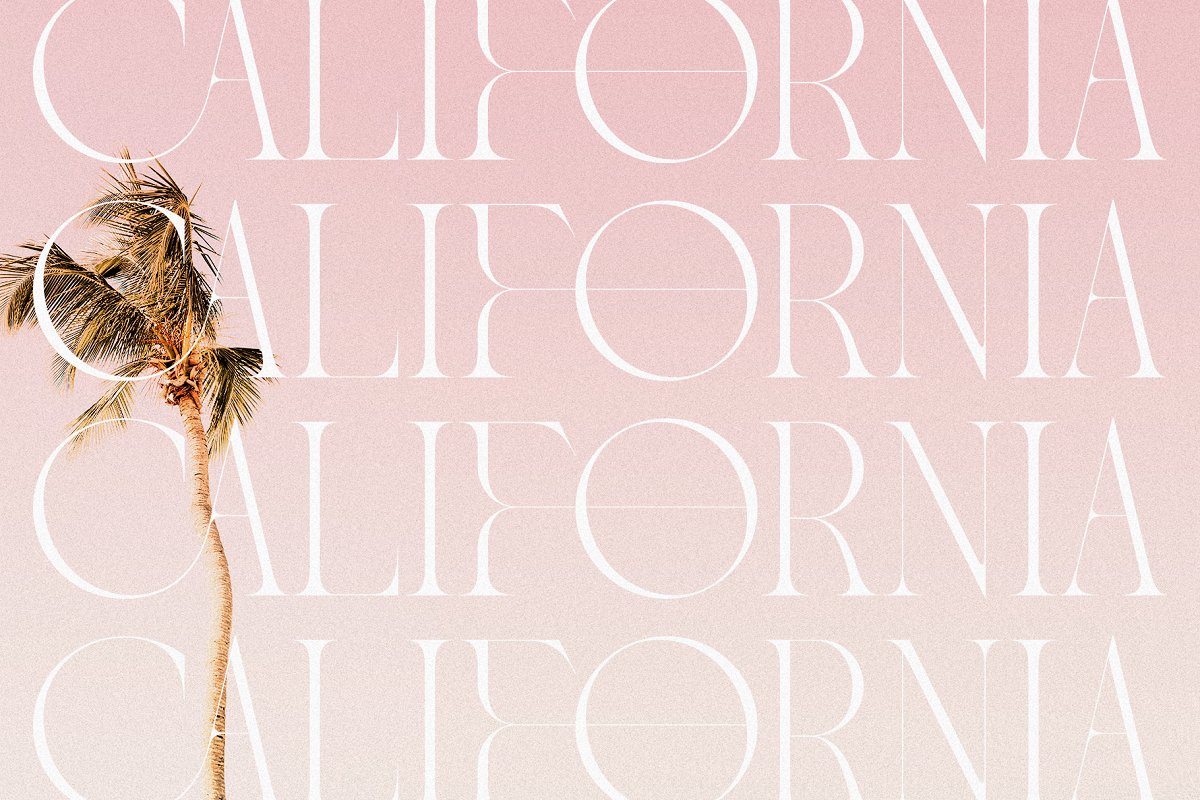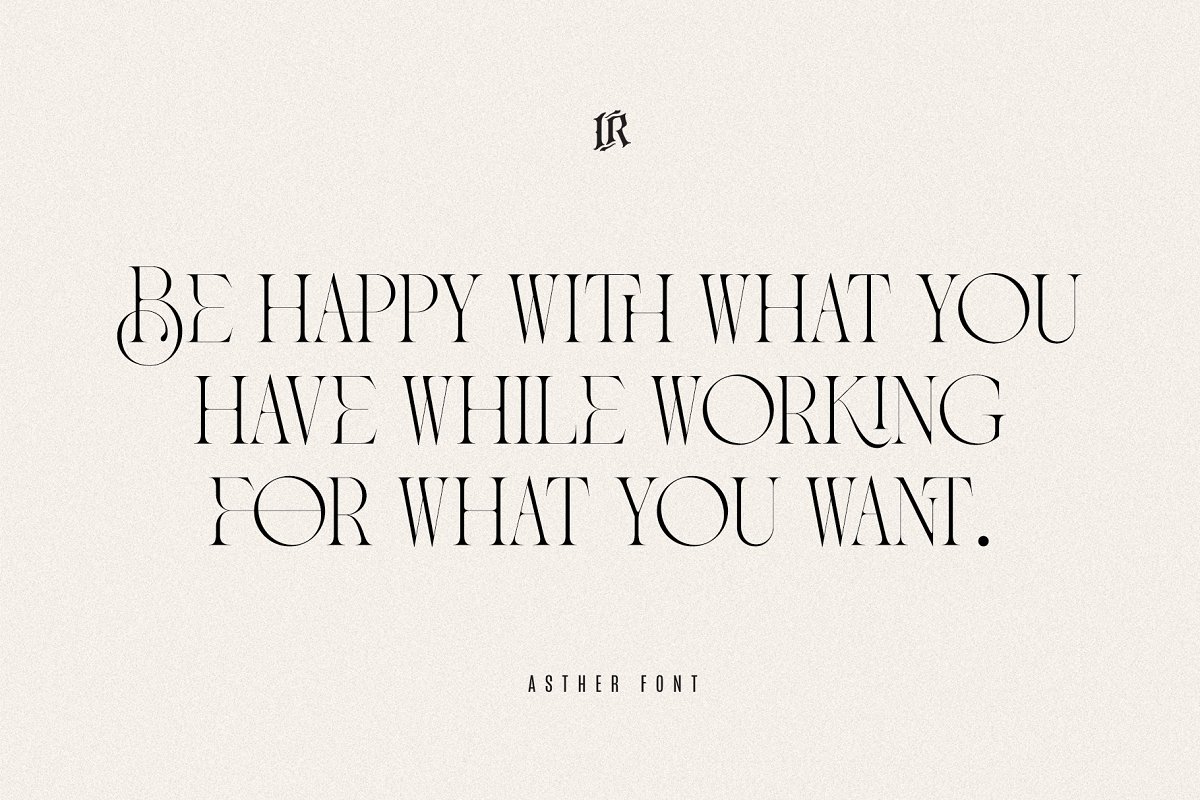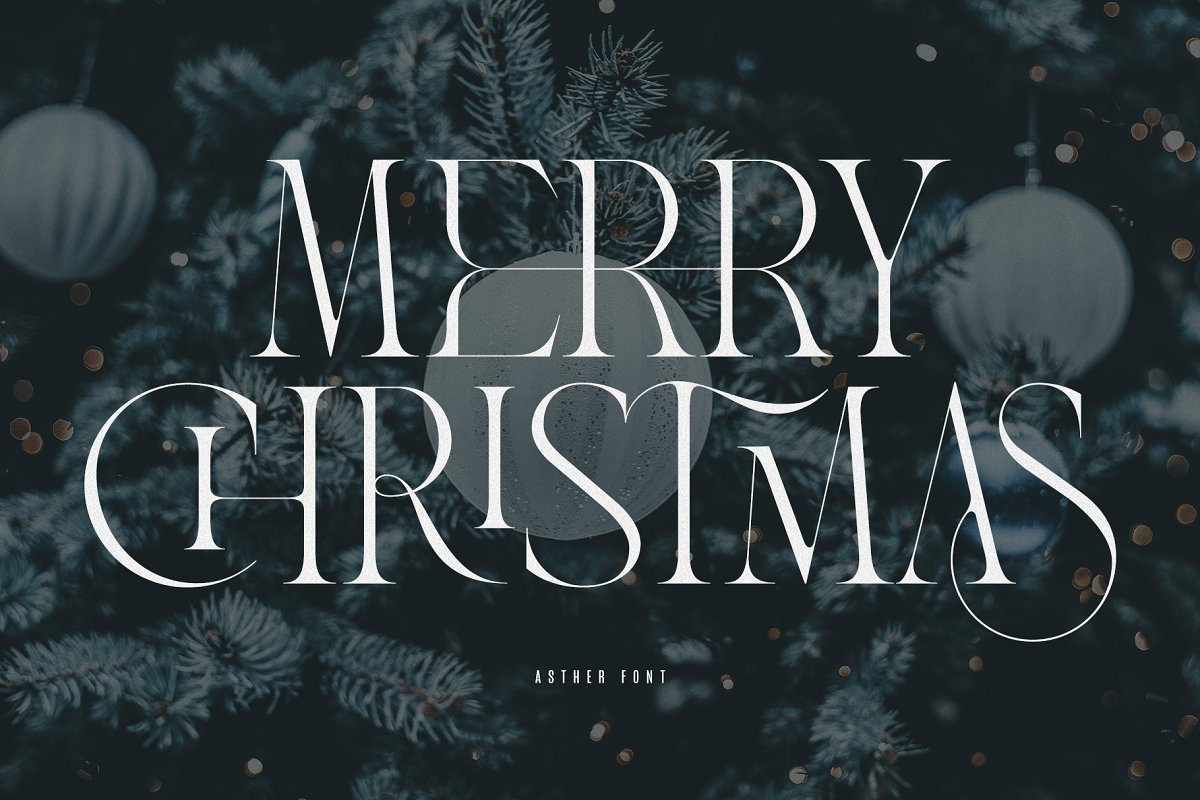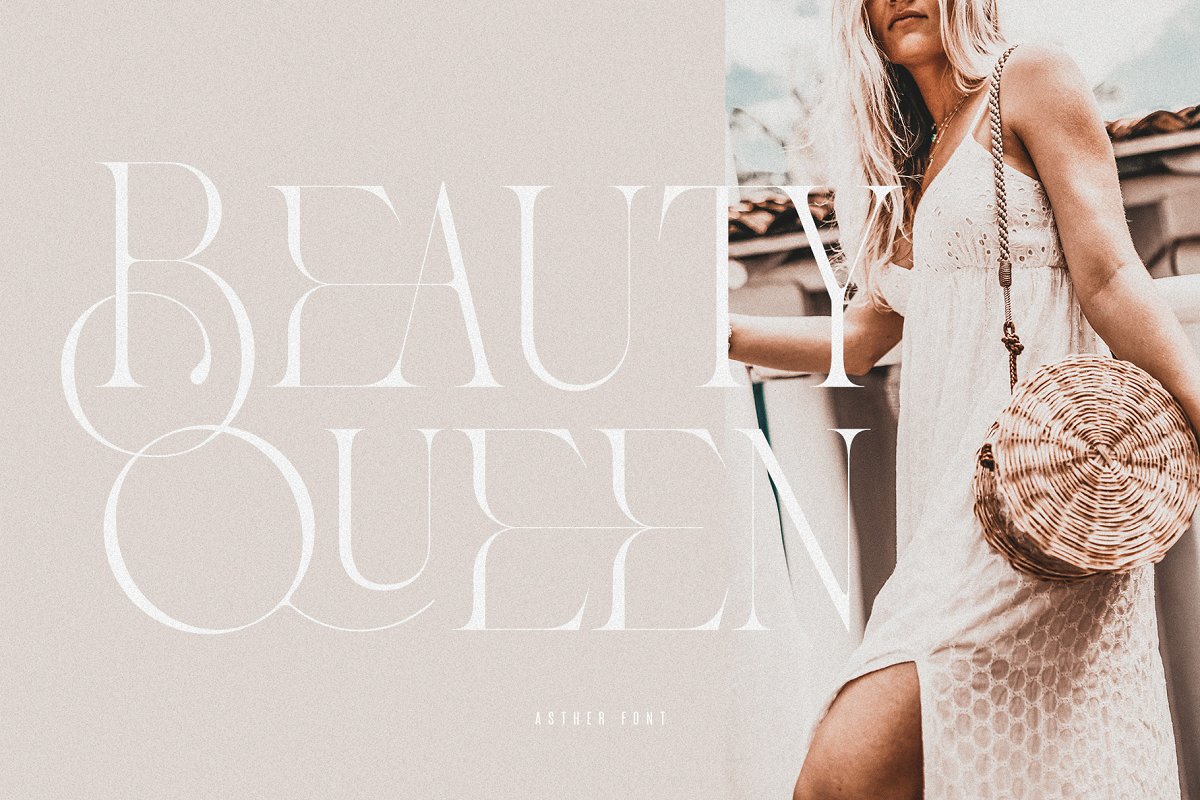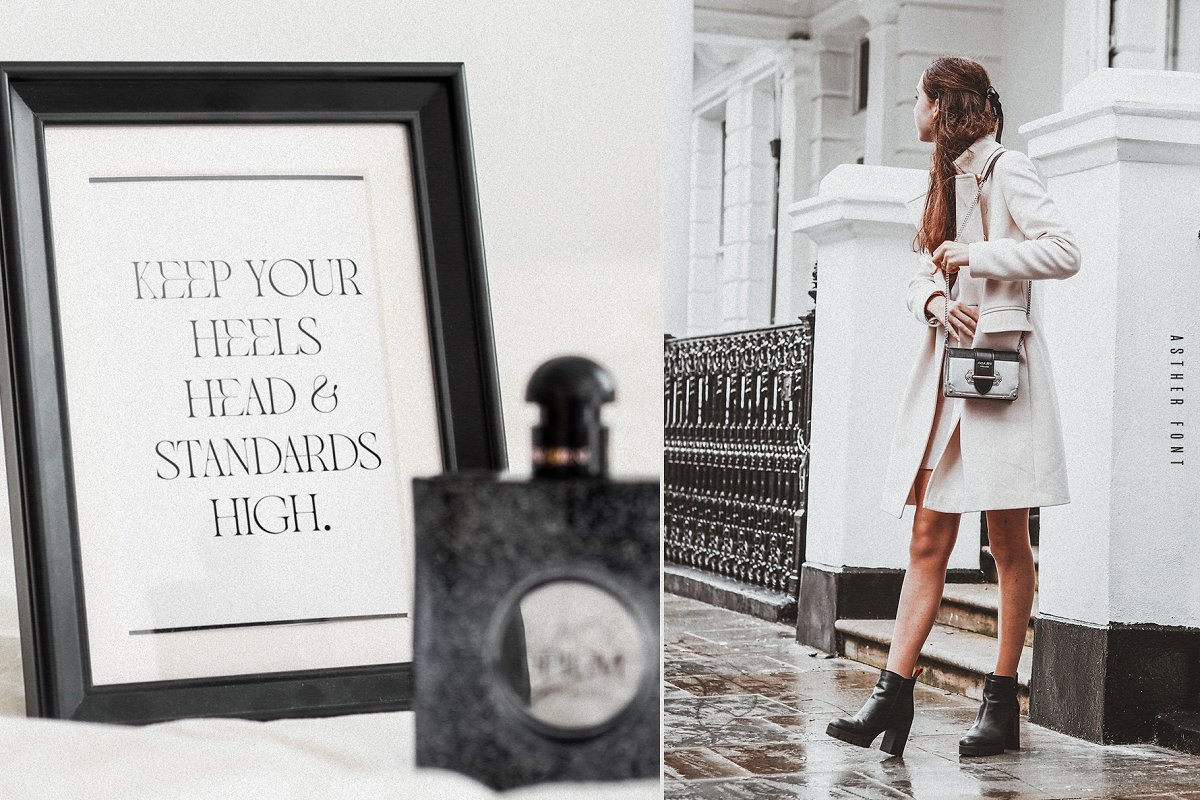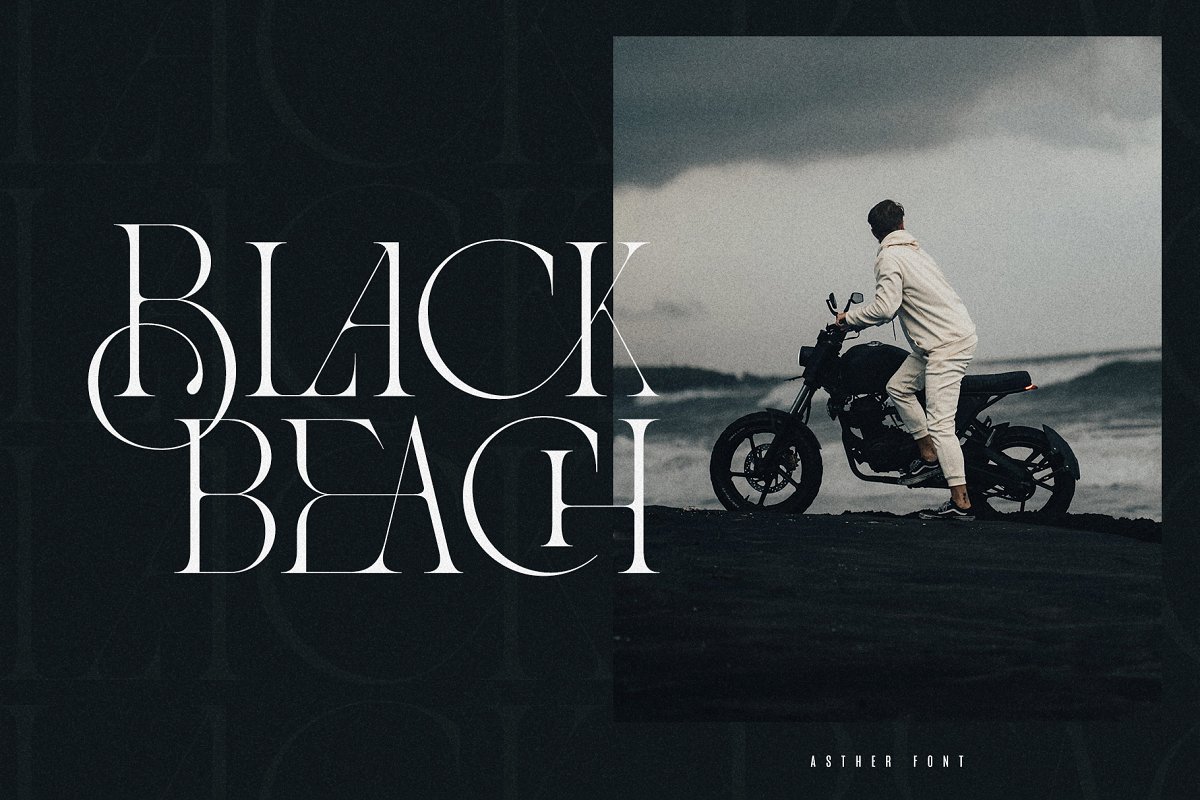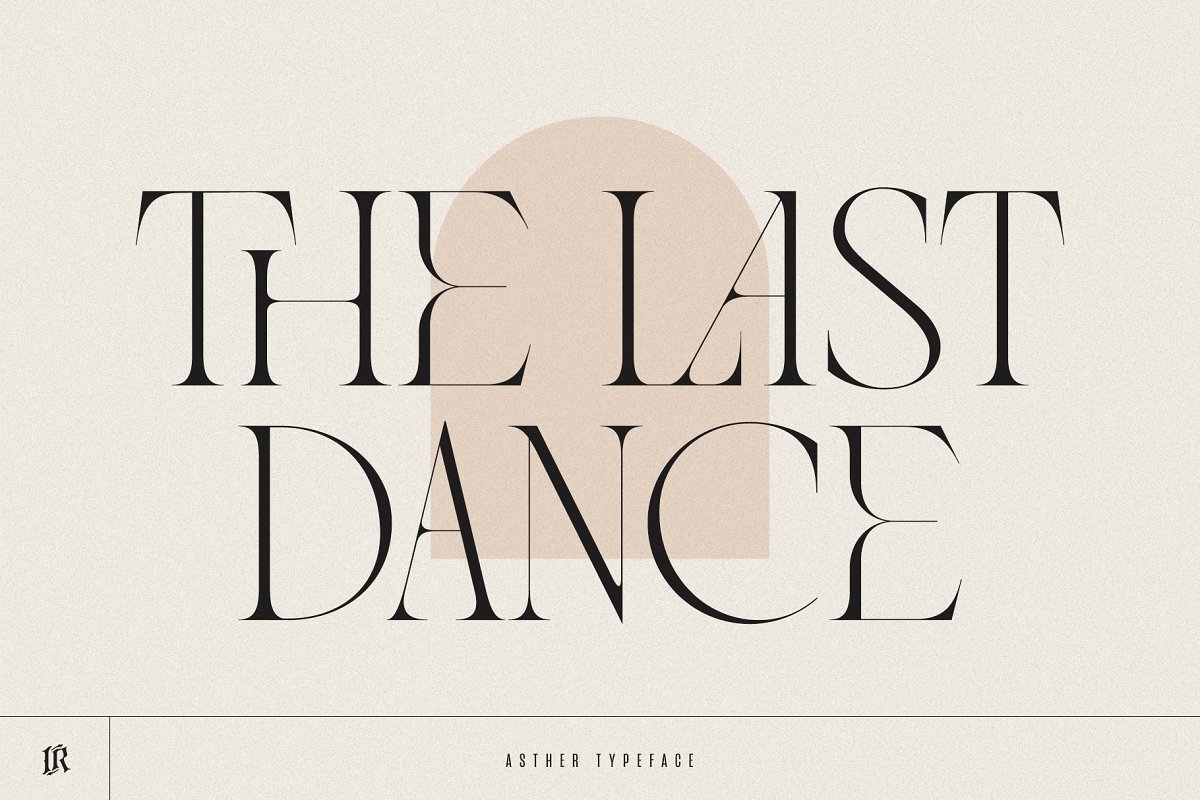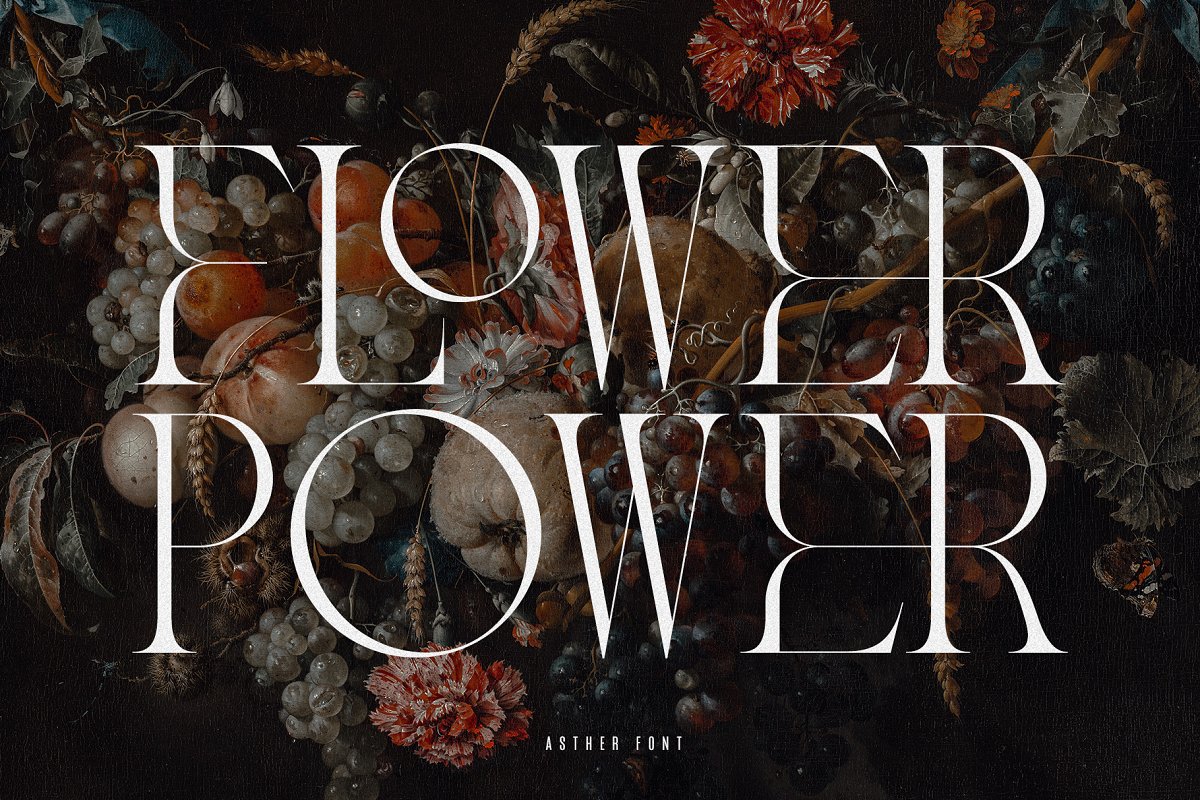
About the Asther Fashion Font
This typeface includes special uppercase letters and access to your OpenType features, alternate glyphs and more than 60 ligatures, Asther typeface is a serif typeface made mainly for headlines, titles, and other short texts and is well-suited for advertising, vintage mood board, branding, logotypes, packaging, titles, editorial design and modern and vintage design